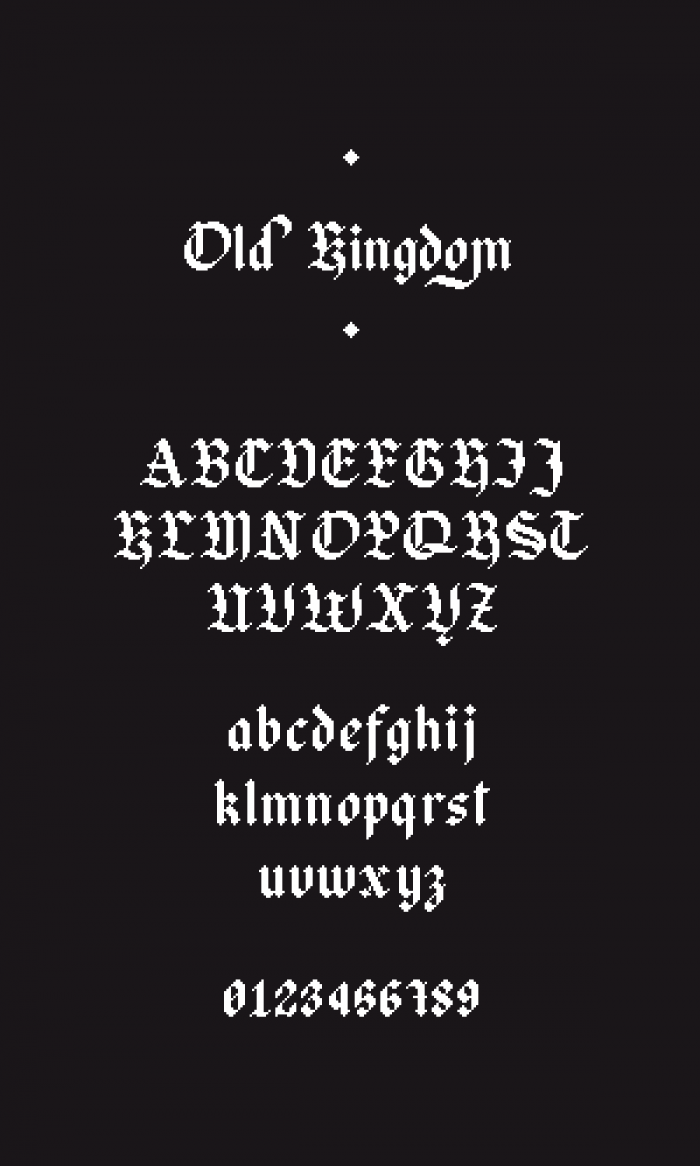
Kerning's done. Couldn't believe how much time it took me (god ther's so much character) but now it's so much better. So glad this option is now available
Very nice pixel Gothic. I very much like the minuscules and the figures: they are simple and restrained. Consider adding alternates with swashes. Good use of kerning. 10/10
Gorgeous and very well-done. May I suggest reducing the letterwidth of "f" and "r"?
@Unbreon123 Thanks for your comment, you're completely right. I just heard about kerning option of the fontstructor and might tried it later
@jaycobs - What a wonderful Olde English pixel font! Congratulations on the Top Pick. :^)
Congratulations for the TP I had not expected to see a well balanced Gothic pixels font
Kerning's done. Couldn't believe how much time it took me (god ther's so much character) but now it's so much better. So glad this option is now available
Very nice pixel Gothic. I very much like the minuscules and the figures: they are simple and restrained. Consider adding alternates with swashes. Good use of kerning. 10/10
Good look! Its balance may/might come from many repetitions (or ambiguities): B/R C/T H/R I/J K/R O/Q U/V UV/W V/Y…
waiting for more symbols like õöóòñçðþøß
Gorgeous and very well-done. May I suggest reducing the letterwidth of "f" and "r"?